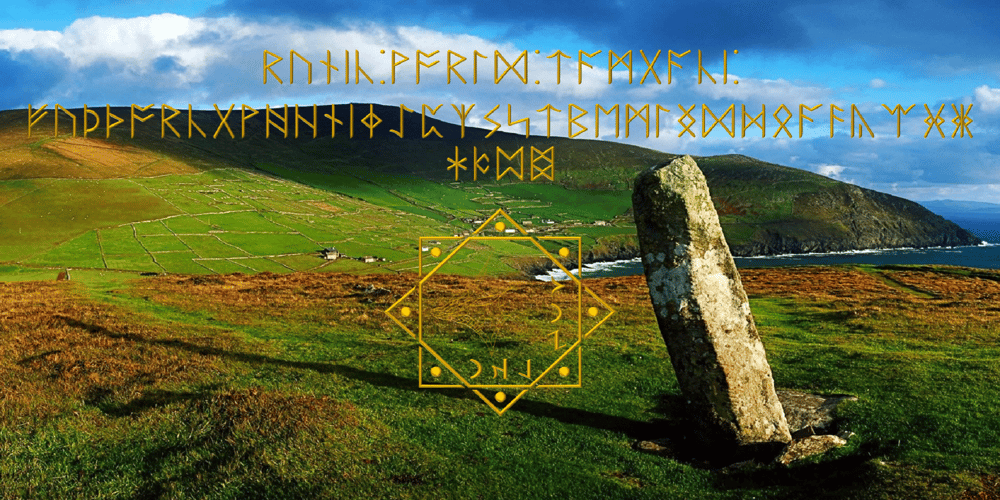
Ongunkan Anglosaxon Futhark Ru Font Family was designed by Osman Nuri ALKAN and published by Runic World Tamgacı. Ongunkan Anglosaxon Futhark Ru contains 1 styles and family package options. Anglo-Saxon runes or Anglo-Frisian runes are runes that were used by the Anglo-Saxons and Medieval Frisians (collectively called Anglo-Frisians) as an alphabet in their native writing system, recording both Old English and Old Frisian (Old English: rūna, ᚱᚢᚾᚪ, “rune”). Today, the characters are known collectively as the futhorc (ᚠᚢᚦᚩᚱᚳ, fuþorc) from the sound values of the first six runes. The futhorc was a development from the older co-Germanic 24-character runic alphabet, known today as Elder Futhark, expanding to 28-characters in its older form and up to 34-characters in its younger form. In contemporary Scandinavia, the Older Futhark developed into a shorter 16-character alphabet, today simply called Younger Futhark.